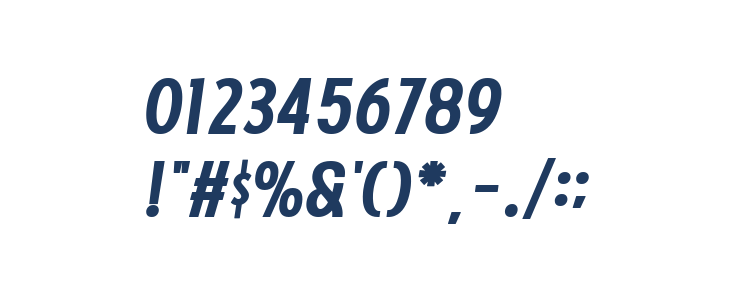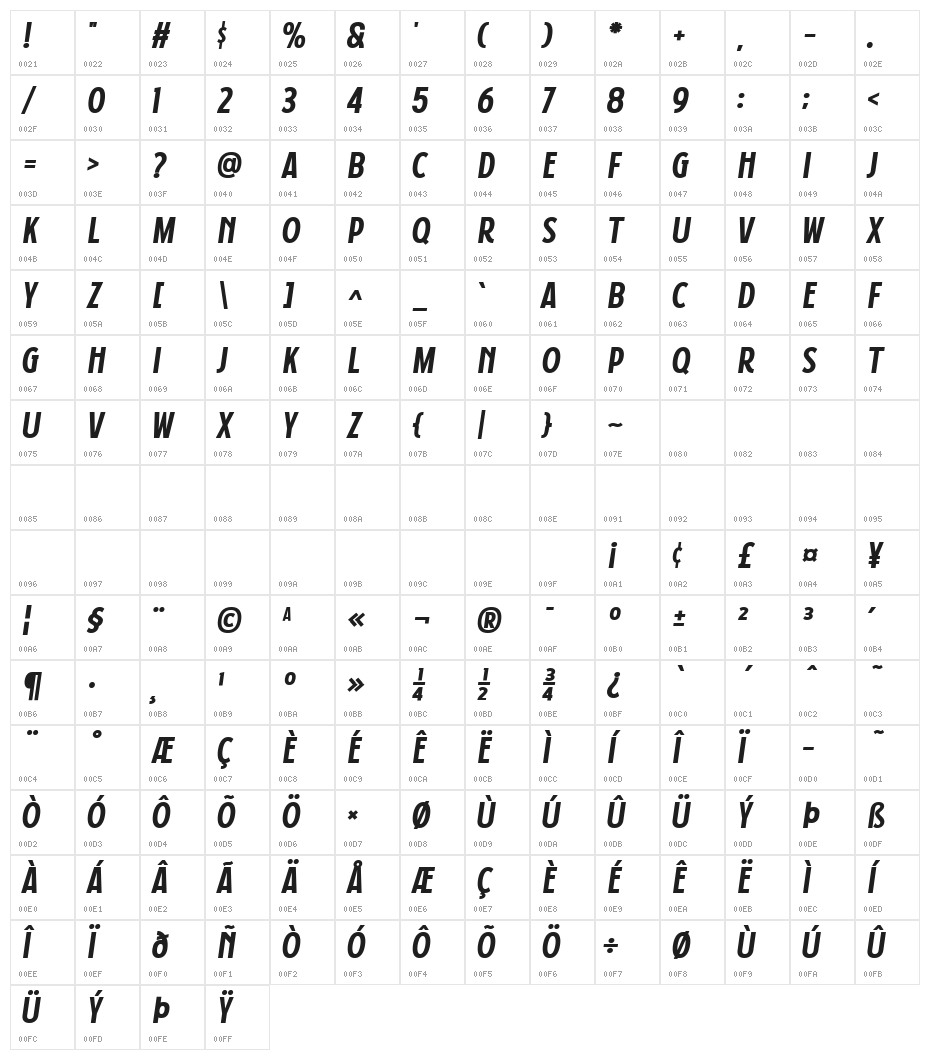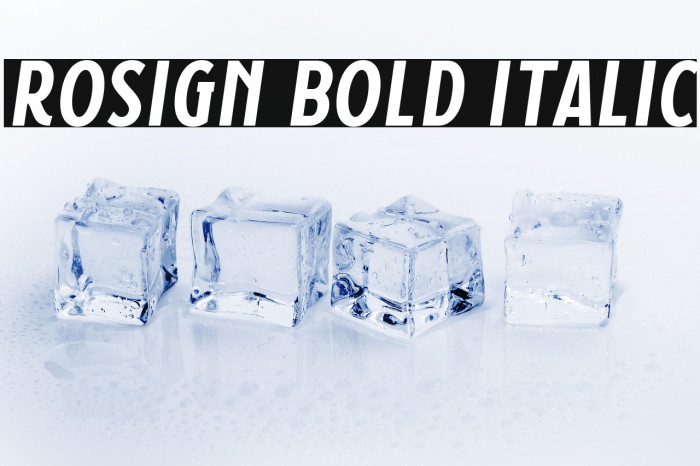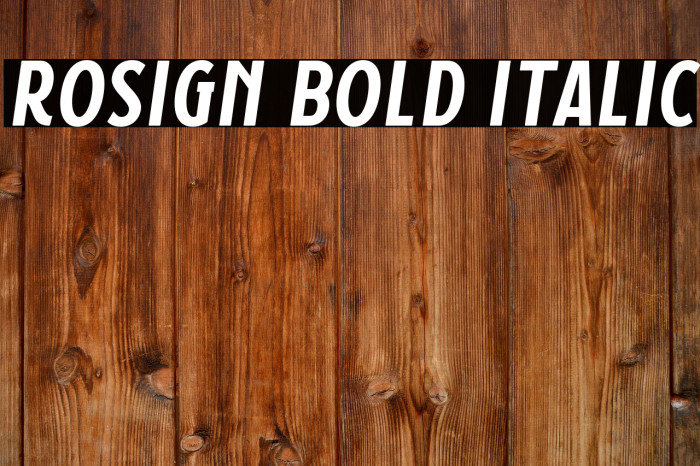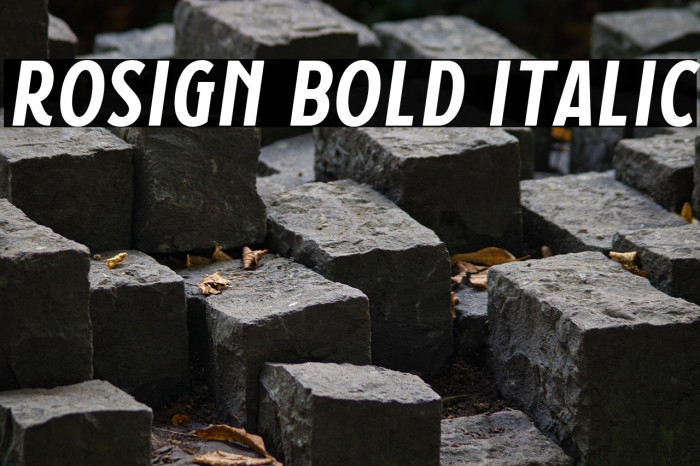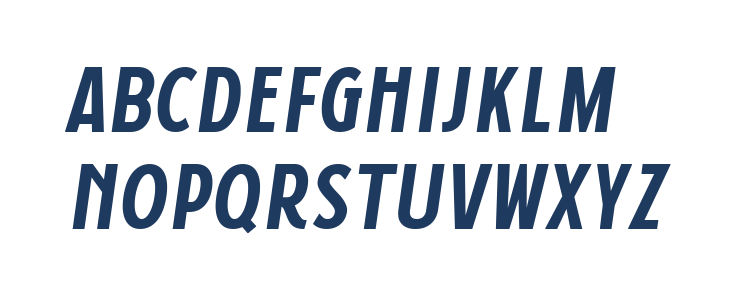
Rosign Bold Italic Font
Rosign Bold Italic Description
This font exhibits a bold and italicized style, characterized by its strong, slanted letterforms that convey a sense of dynamism and emphasis. The strokes are thick and consistent, providing a robust appearance suitable for impactful design. The uppercase and lowercase letters maintain a uniform slant, enhancing the italic effect. Numerals and special characters are designed with the same boldness, ensuring cohesive visual harmony across all text elements. This font's design is modern and assertive, making it ideal for attention-grabbing headlines and titles.